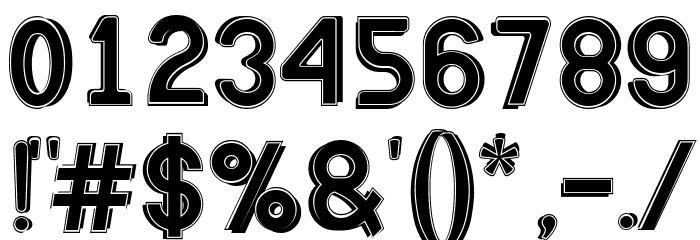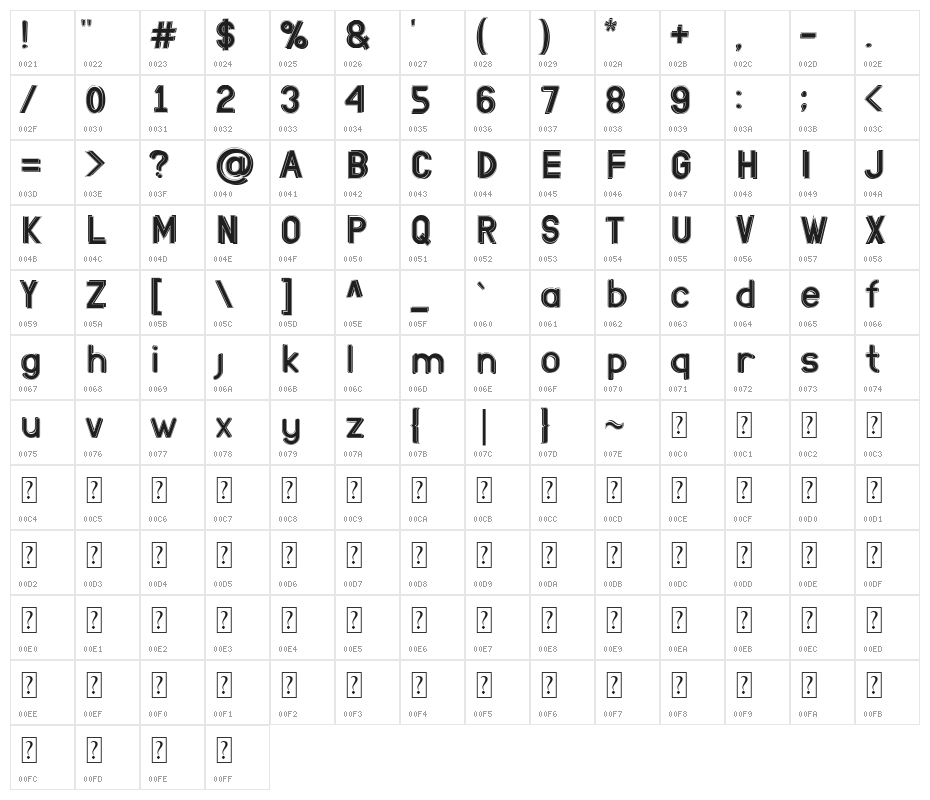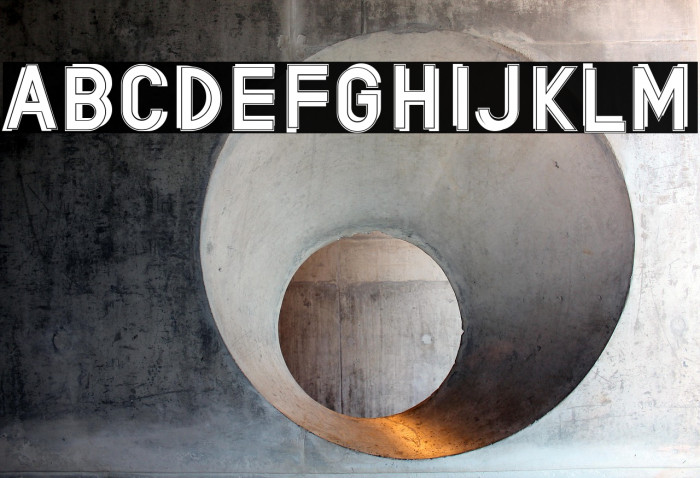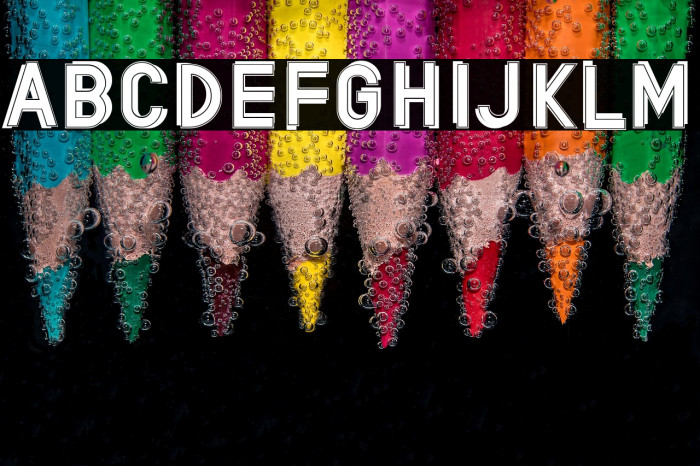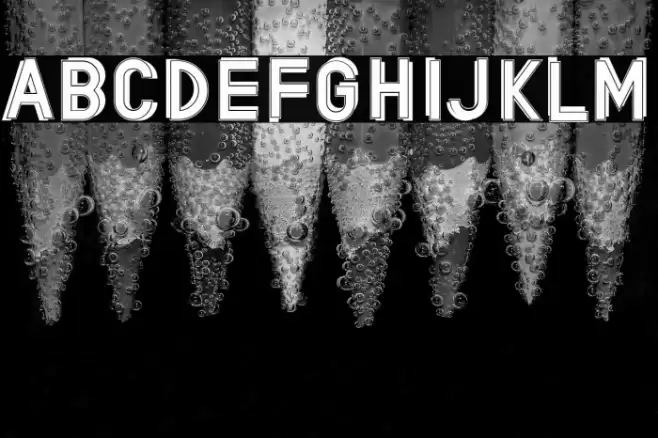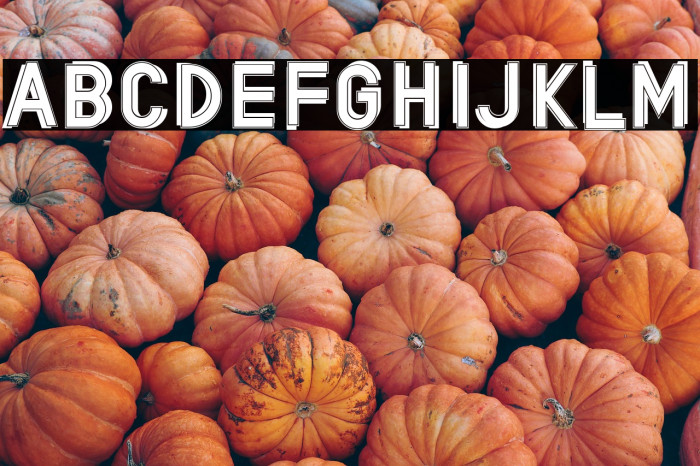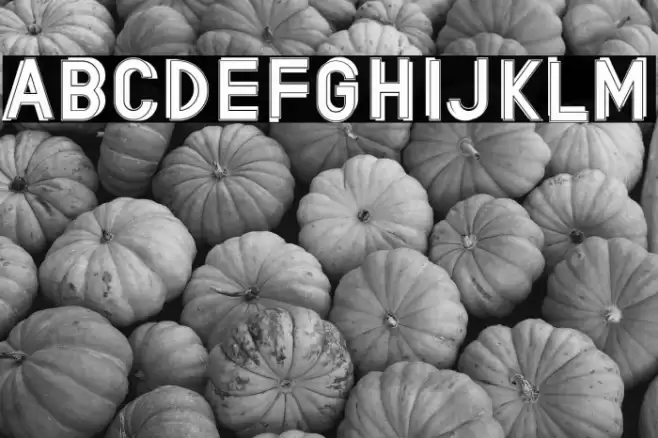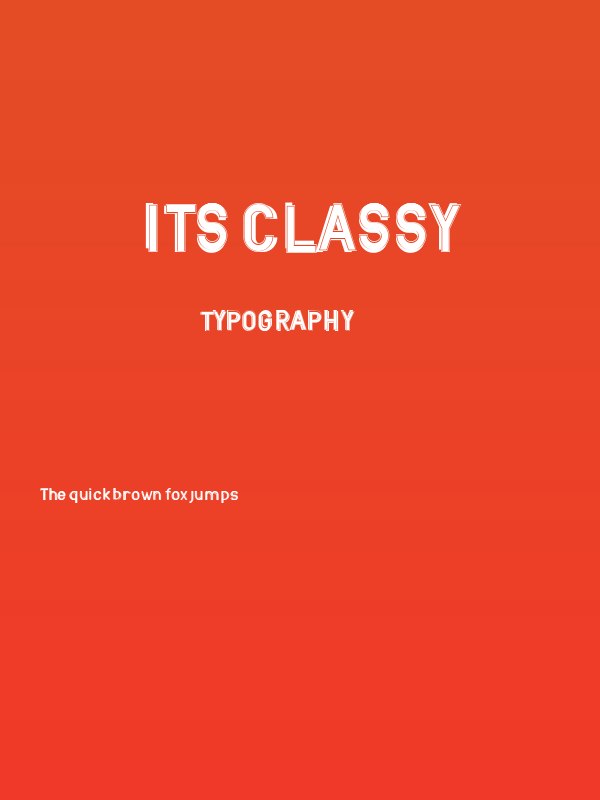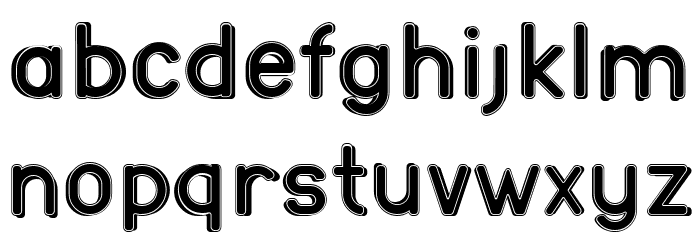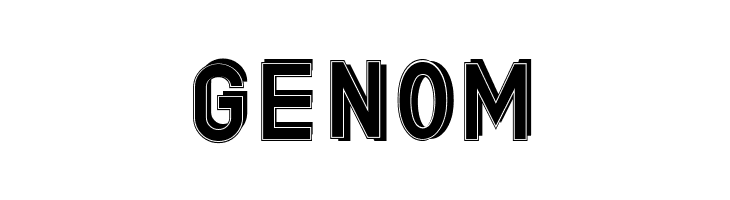
its CLASSY Font
its CLASSY Description
This font features a bold and modern design with a distinct outline that gives each character a three-dimensional appearance. The uppercase and lowercase letters maintain a consistent style, with clean lines and a geometric structure. The numbers and special characters are designed to match the overall aesthetic, ensuring uniformity across all elements. The font's boldness and unique outline make it stand out, making it suitable for various design projects that require a strong visual impact.
| Proposed Projects | Ideal for branding, posters, headlines, and any design that requires a bold statement. |